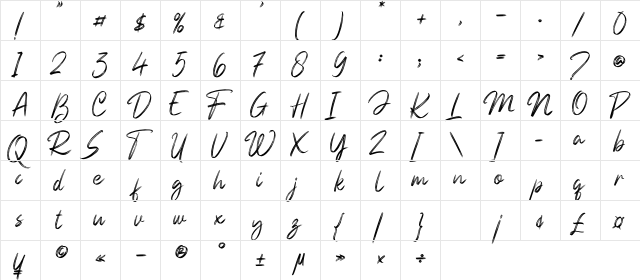
Genesiss_DEMO Regular Font Preview
Genesiss_DEMO Regular
Genesiss_DEMO Regular Font Details
Design Context for Genesiss_DEMO Typeface
Genesiss_DEMO is a composed and adaptable typeface that performs quietly and consistently across a wide range of design contexts.